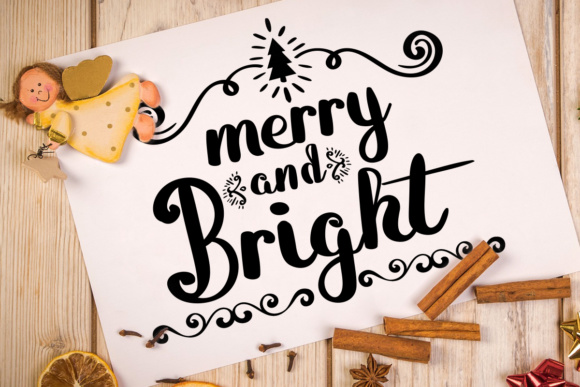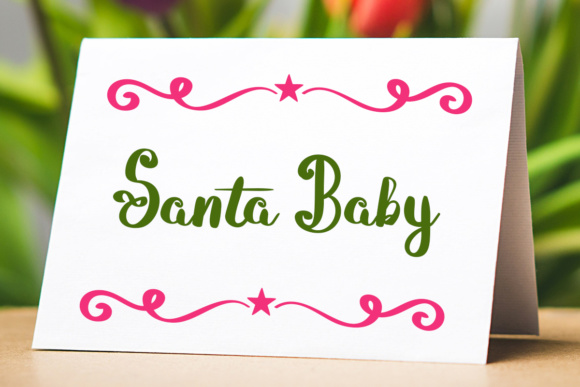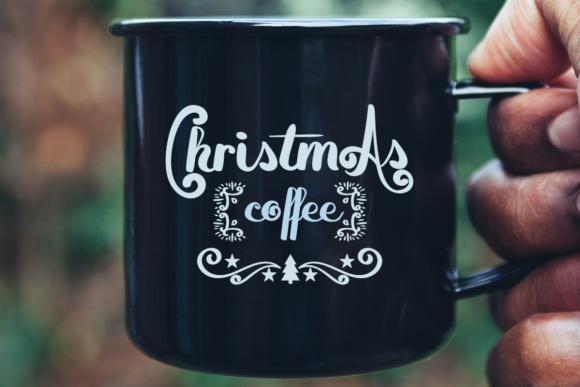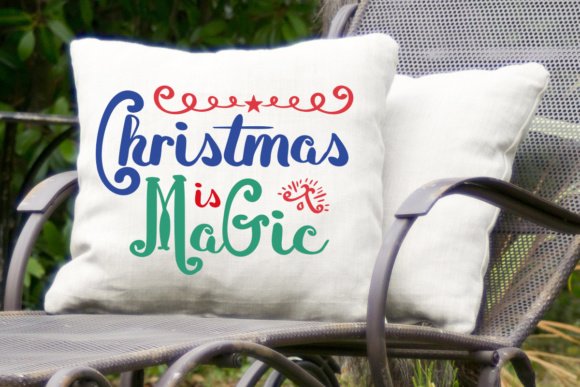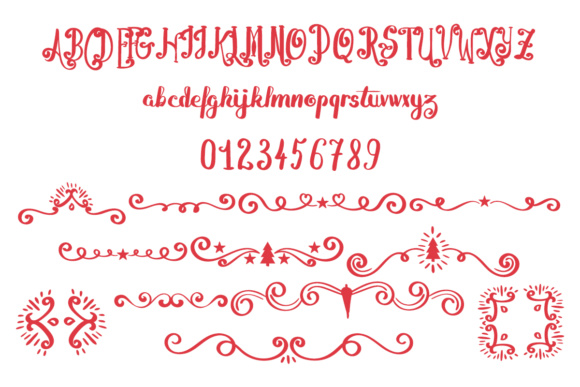
Merry and Bright Font
About Merry and Bright Font
The Merry and Bright font is a fun font that adds the spirit of Christmas straight into your designs.
It’s smooth and rounded, and comes with small little Christmas elements.